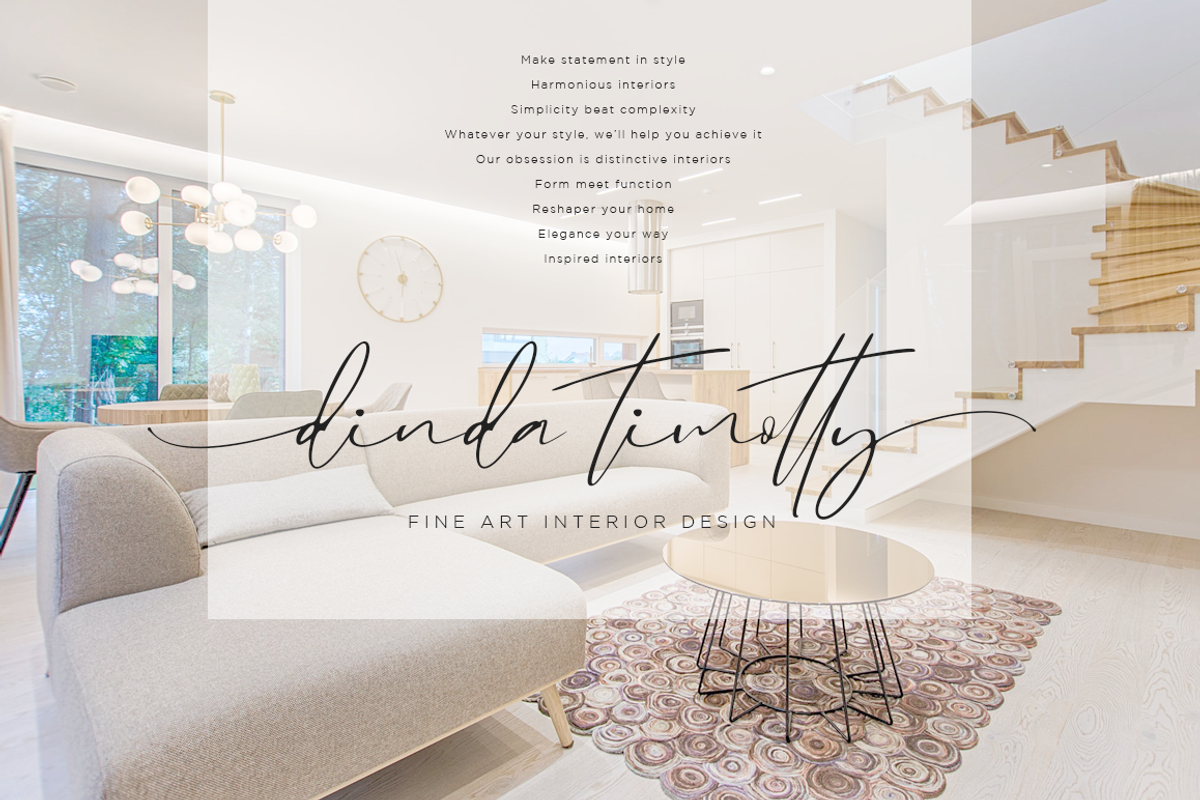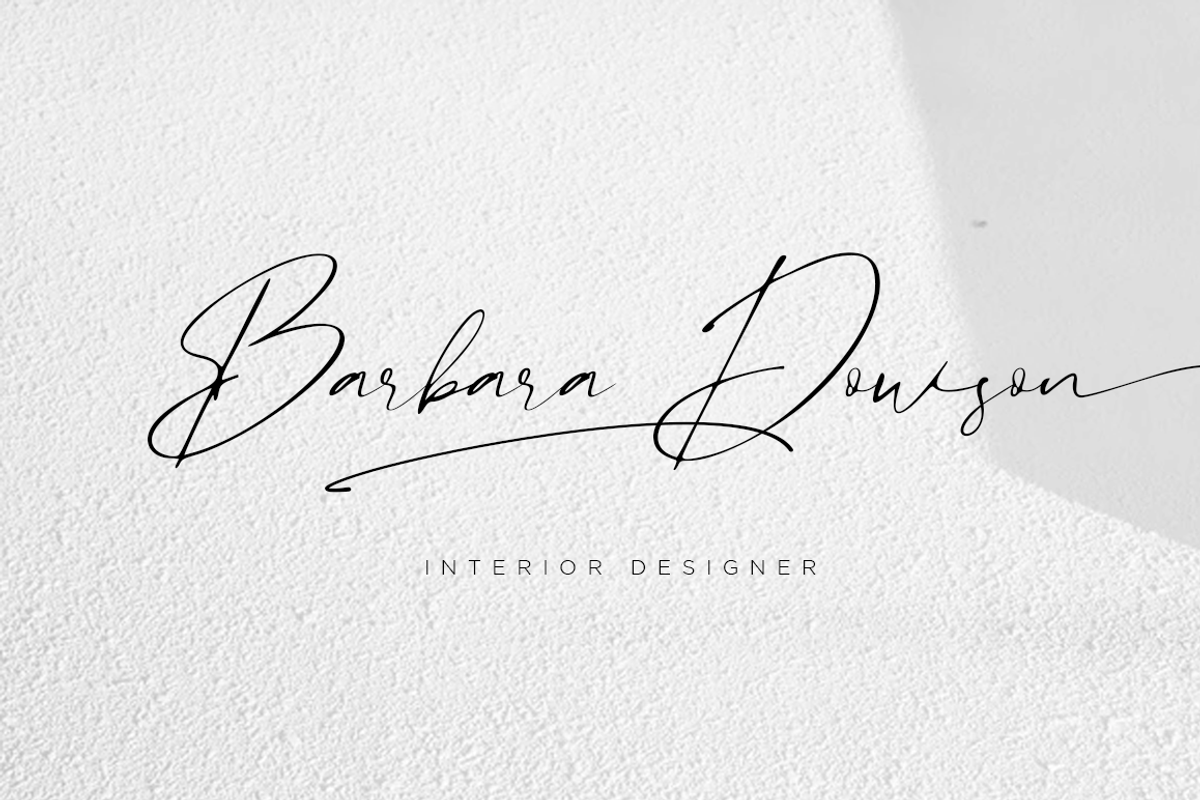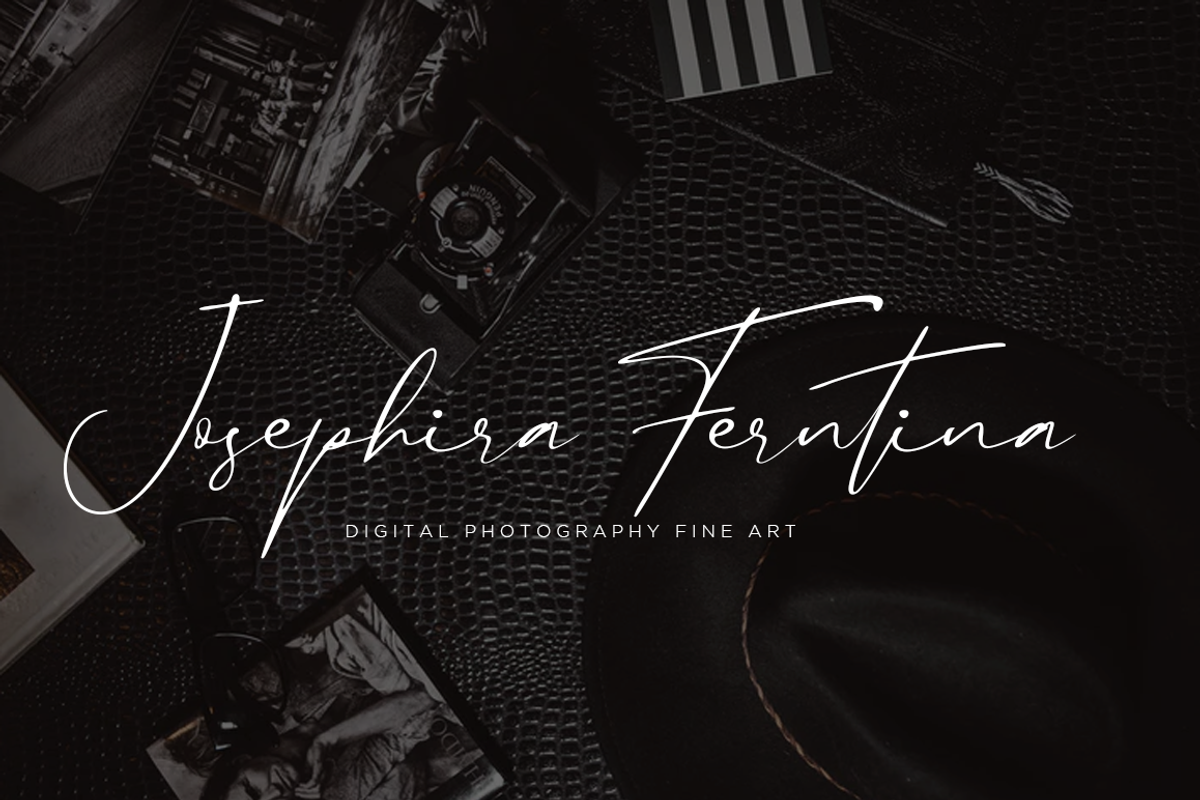
Santa Fe Spring is a chic casual modern calligraphy script font. It is perfect for branding, signature, wedding invitation, promotion, product packaging, and other needs.
You will get full set of lowercase and uppercase letters, numerals and punctuation, multilingual symbols, lowercase beginning and ending swashes, ligatures and extra swashes that giving realistic hand-lettered style.